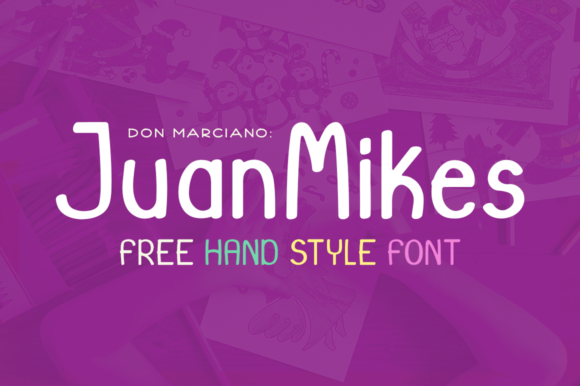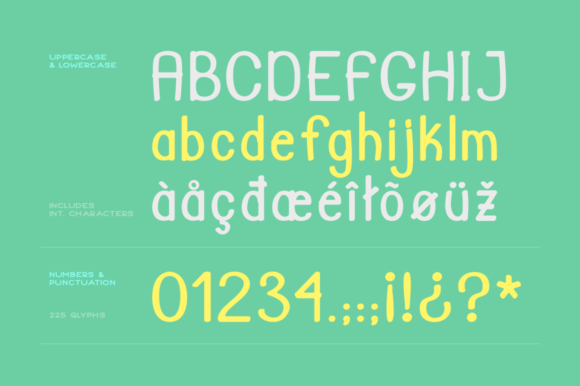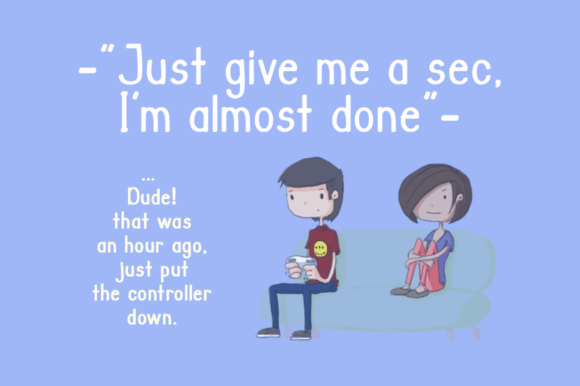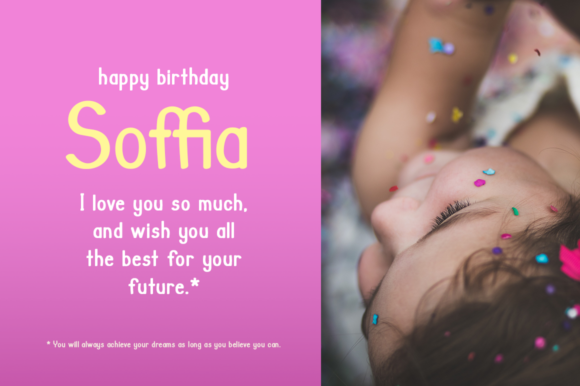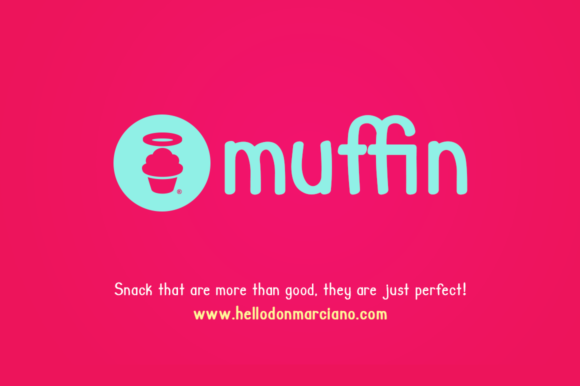
JuanMikes Font
About JuanMikes Font
JuanMikes is a unique and childlike handwritten font with an undeniably youthful vibe. It will add a whimsical spark to any design project!